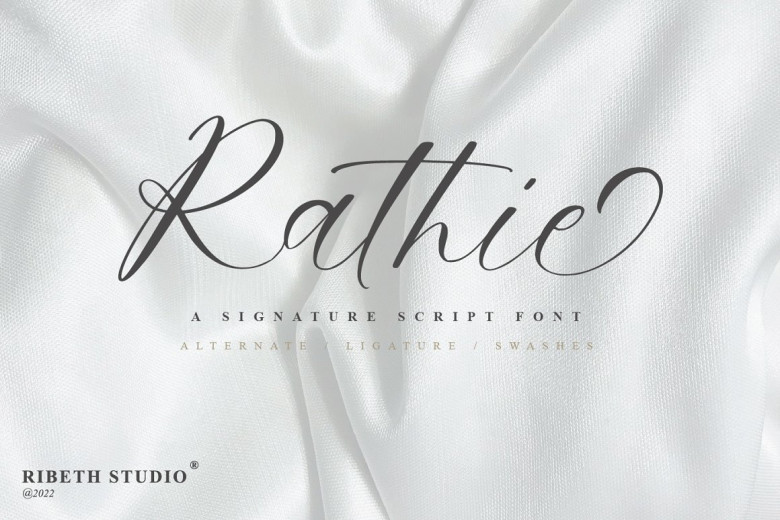
Rathie Font
Rathie is an elegant signature font perfect for bridal showers, wedding watermarks and branding purposes; such as interviews and business cards. Furthermore, Rathie can also be used in logo designs, branding projects wedding designs and ads social media posts, packaging of products labels and photography, watermarks, invitations and any stationery project which needs the feel of handwritten signature.
Rathie Signature Script Font